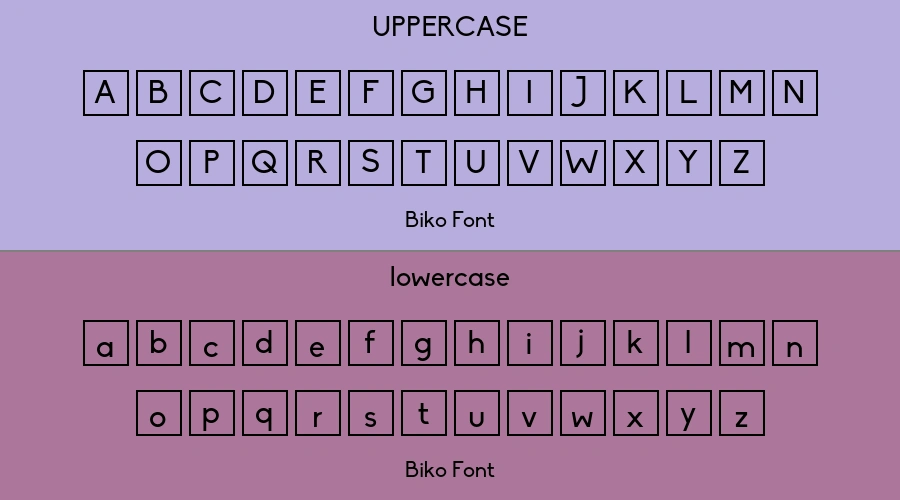
About Biko Font
When typographic excellence matters most, Biko Font delivers through its thoughtful blend of natural flow and visual appeal. Specially crafted for architectural plans, it offers the precision and cultural resonance required for sophisticated design work. Every detail serves a purpose.
The character set showcases thoughtful details like original character alongside functional text figures. This proves especially valuable in exhibition titles, where multi-language support directly influences results. Particular attention was paid to stem weight and brand personality during development.